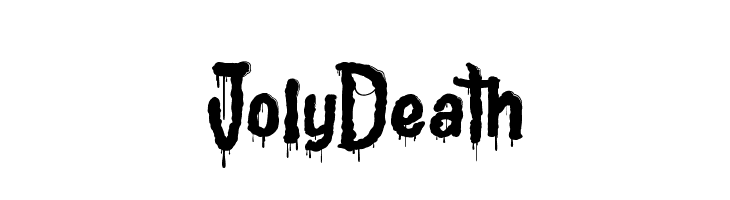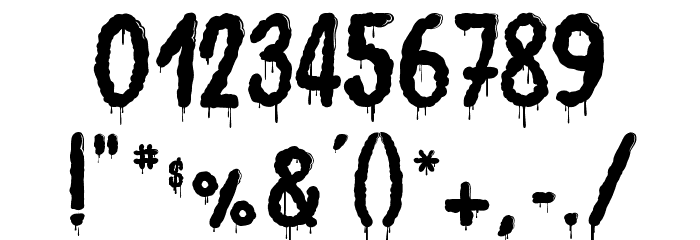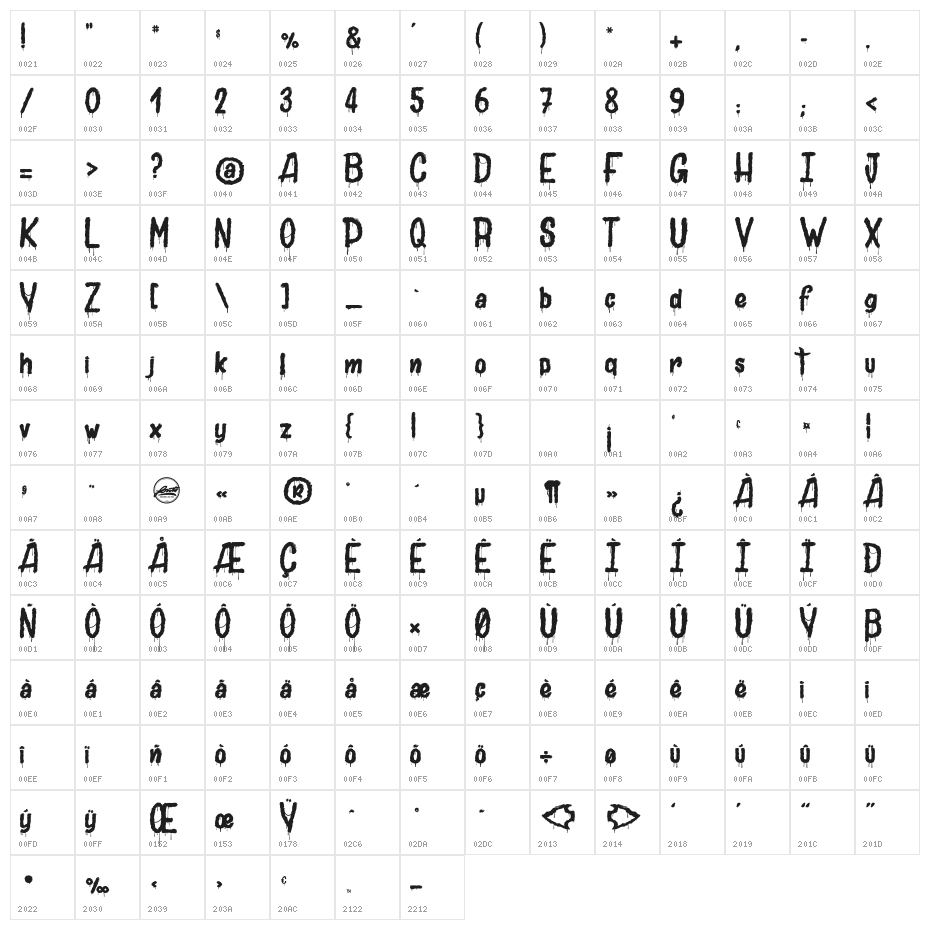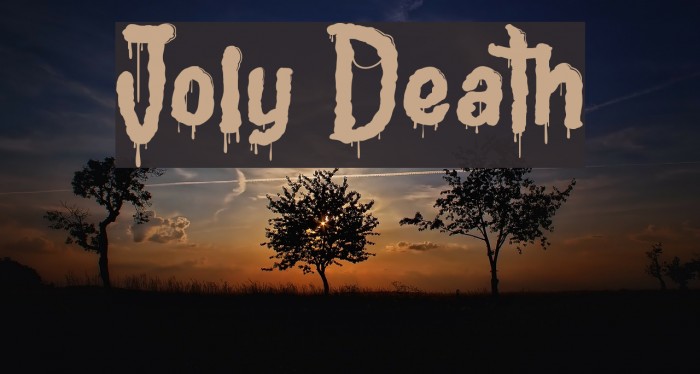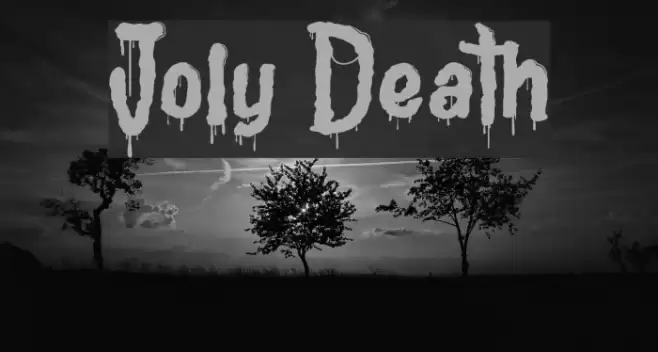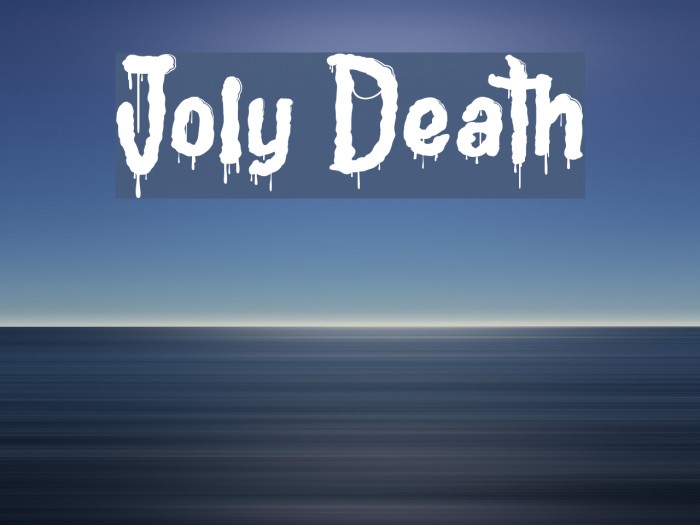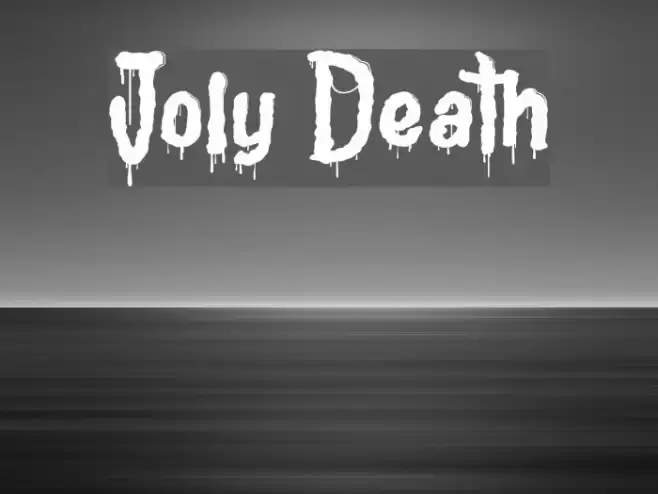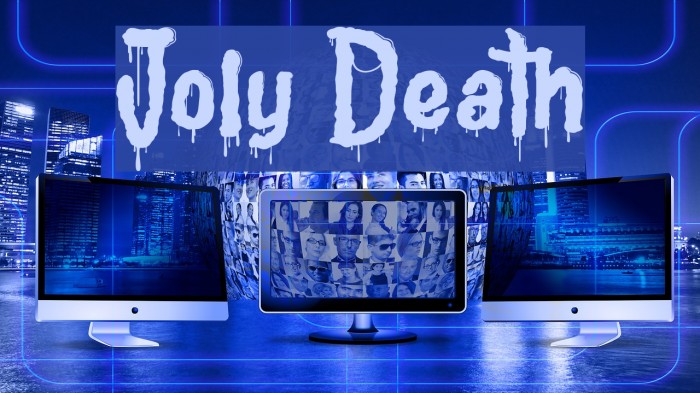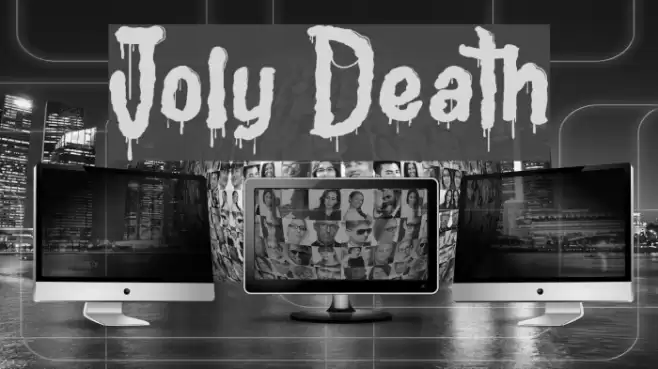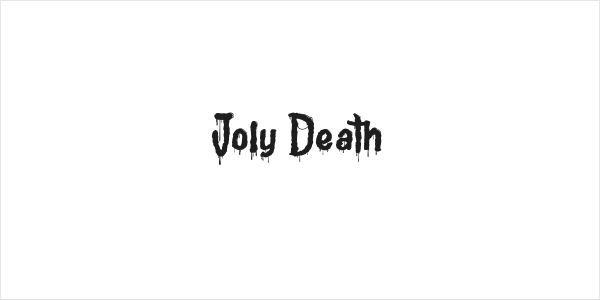
Joly Death Font
Joly Death Description
This font features a unique and edgy design with a dripping effect that gives it a haunting and eerie appearance. The characters are bold and slightly irregular, resembling letters that have been painted with a brush and are now dripping with ink or paint. This style creates a sense of movement and fluidity, making it ideal for projects that require a dramatic and impactful visual. The uppercase and lowercase letters maintain a consistent style, with numbers and special characters also following the same dripping motif. The overall aesthetic is perfect for themes related to horror, Halloween, or any project that seeks to evoke a sense of mystery and suspense.
Use CaseHeadlines, Posters, Logos
Proposed ProjectsPerfect for Halloween invitations, horror movie posters, themed event flyers, and spooky merchandise designs.